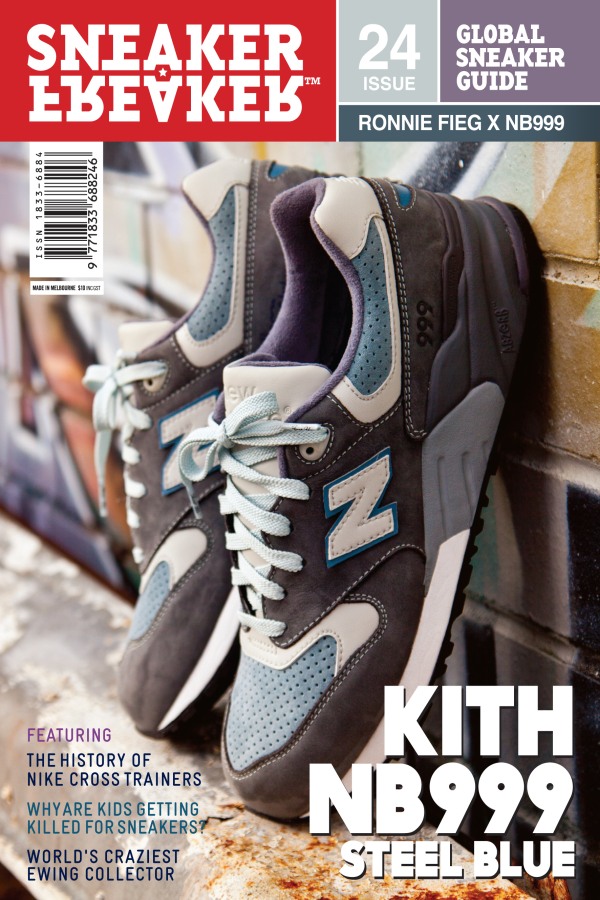
Sneaker Freaker Font
BookSneaker Freaker is a magazine that covers the world of sneakers and sneaker culture. It was founded in 2002 by Australian journalist and sneaker enthusiast Simon Wood. The magazine features articles on sneaker releases, design, history, and culture, as well as interviews with industry insiders, collectors, and celebrities.
Base 12 Serif Bold is the font style used for the magazine's logo on the cover. The Base typeface was created by Zuzana Licko in 1995 as screen fonts for Emigre's website. Later on, a companion printer typeface was added to the font family.